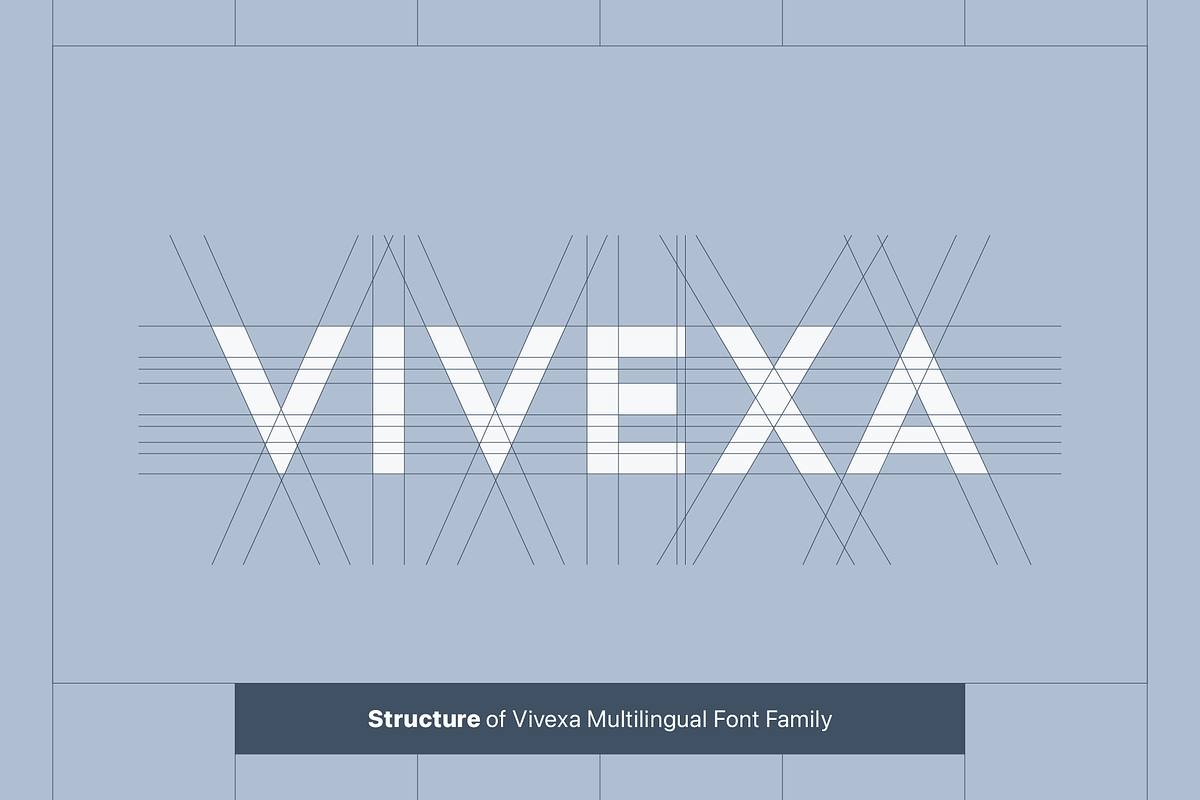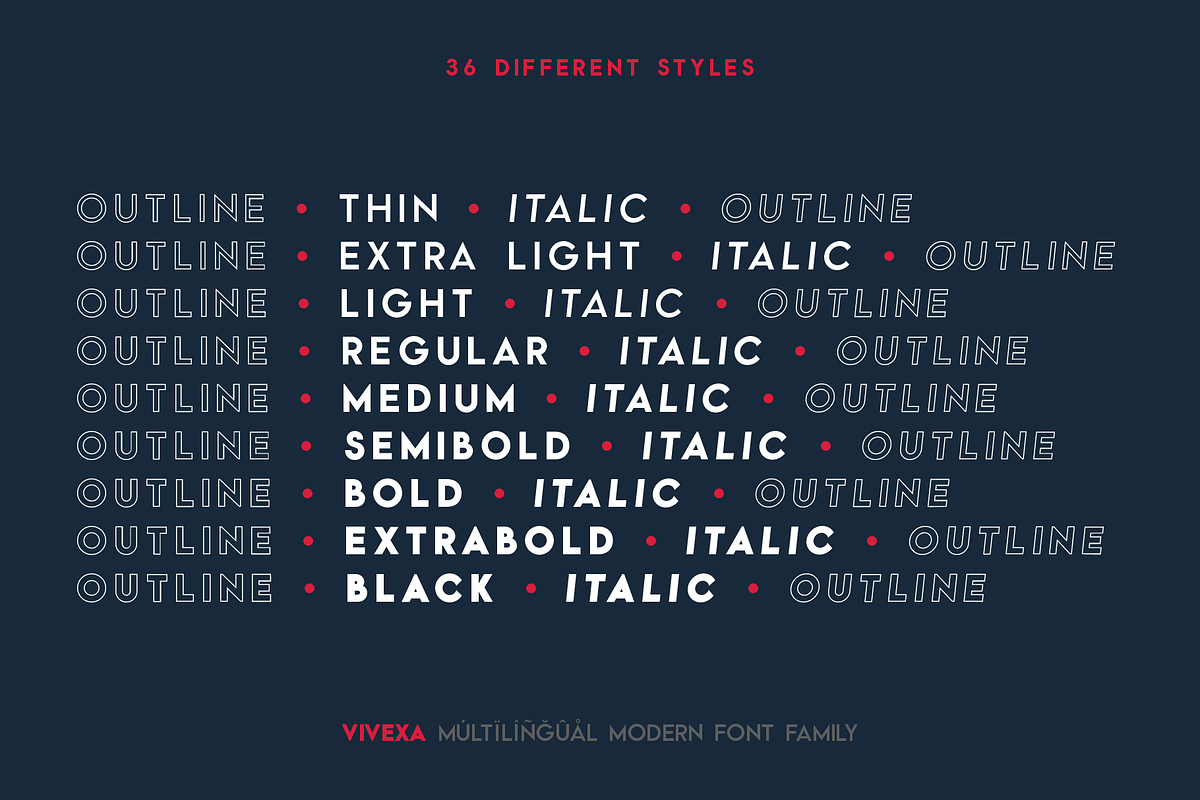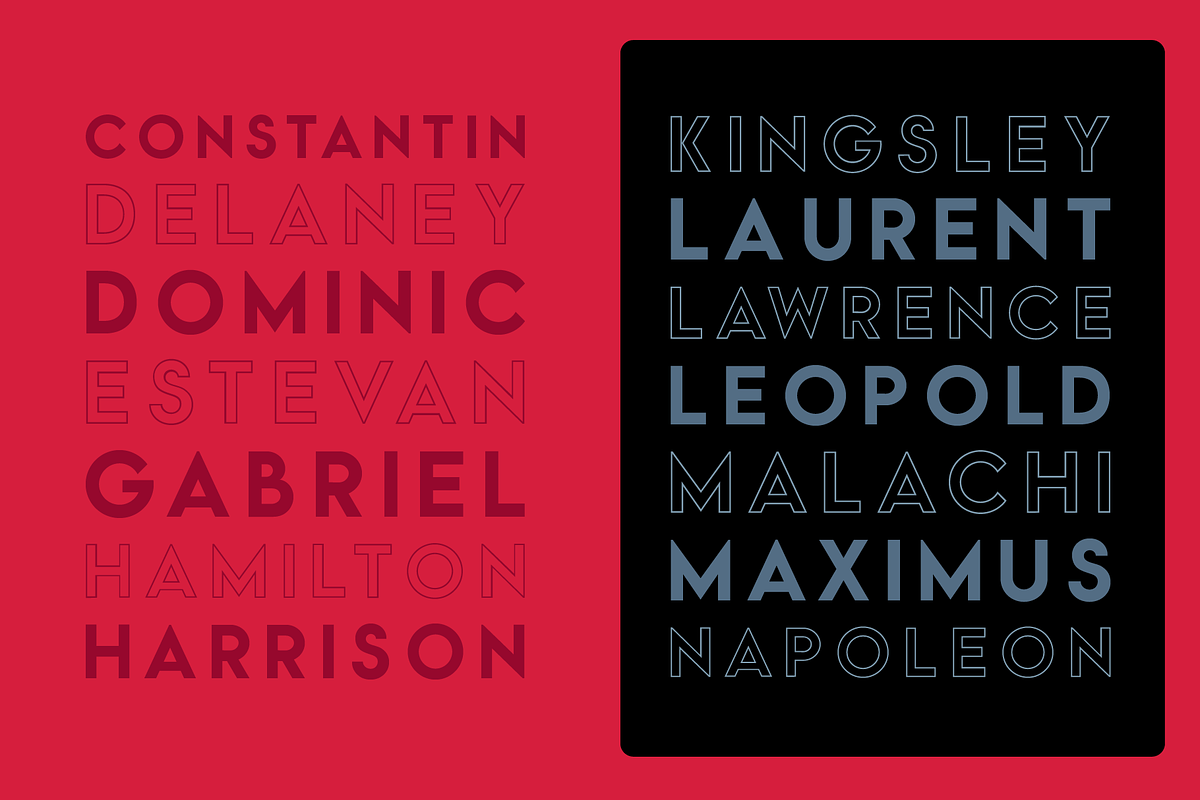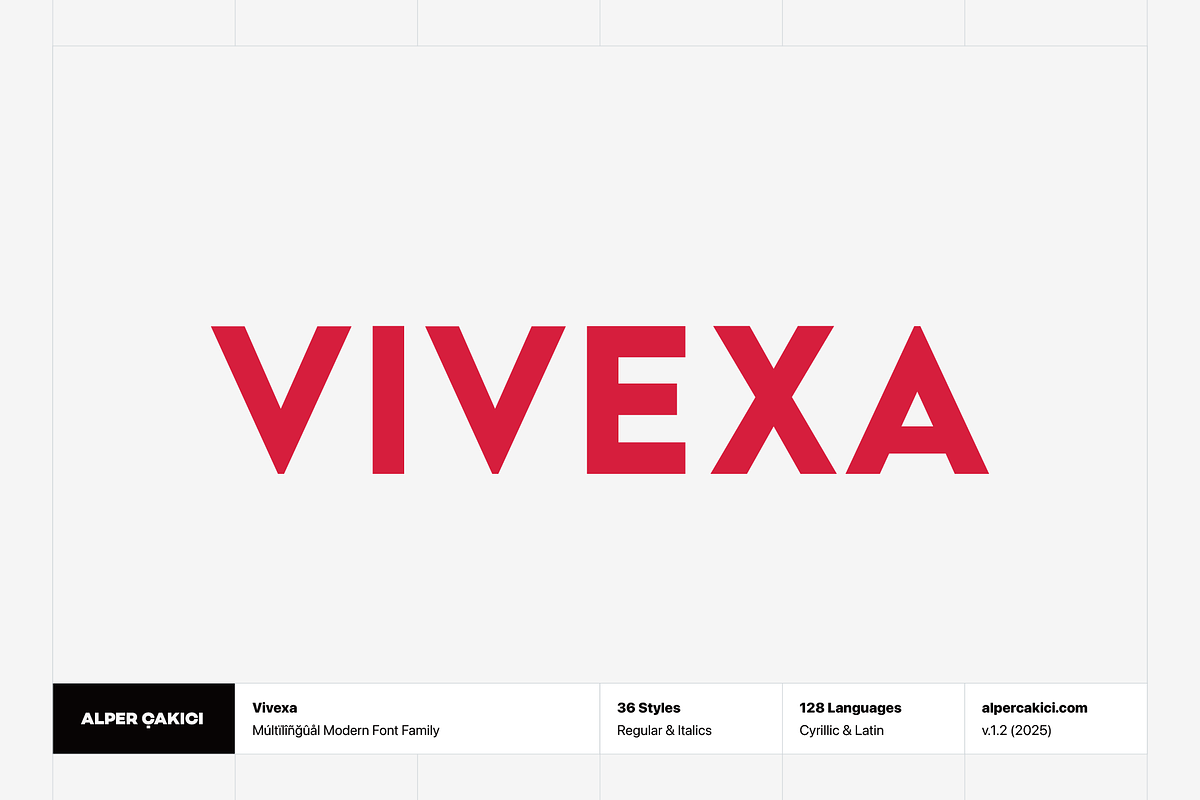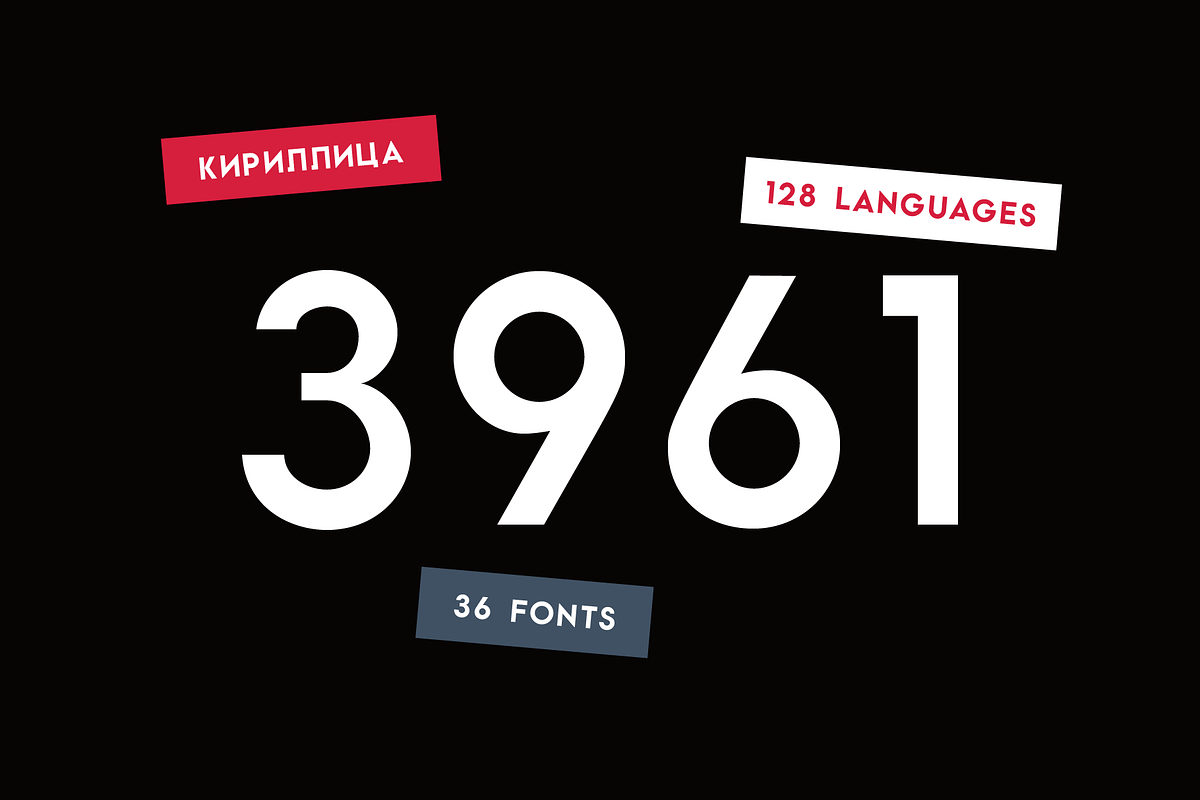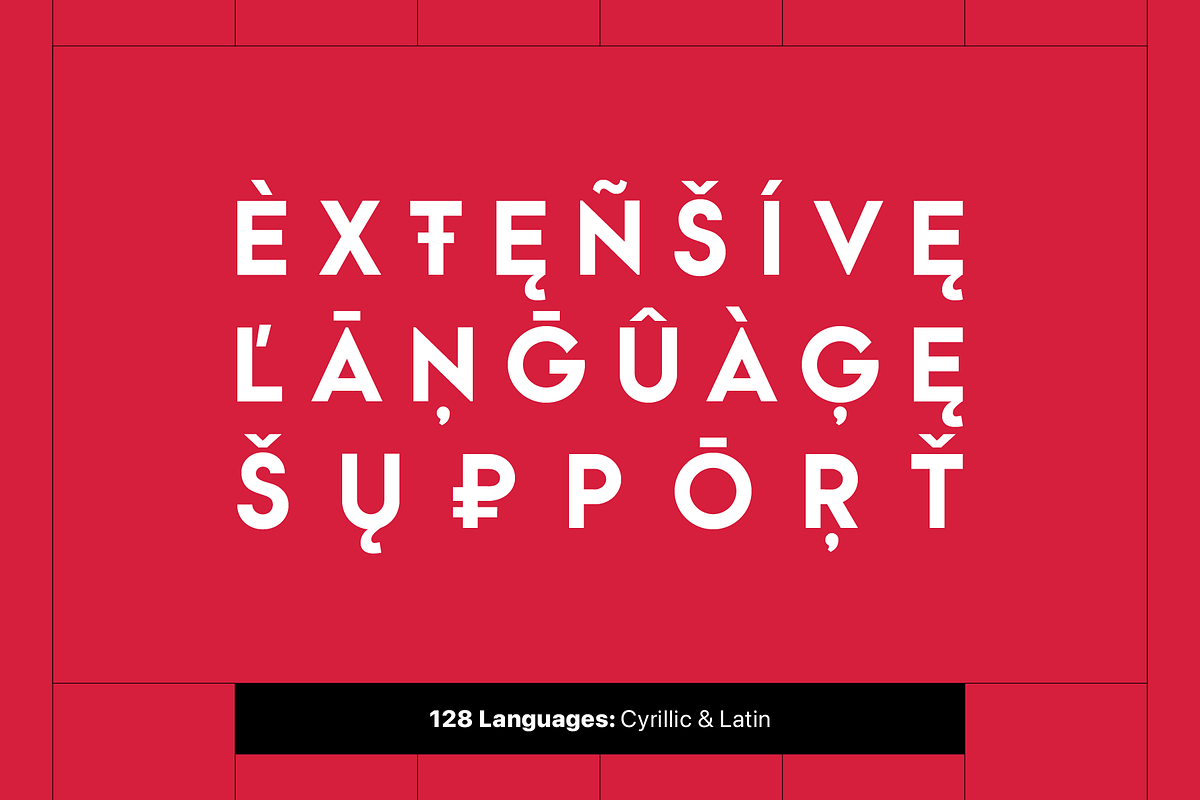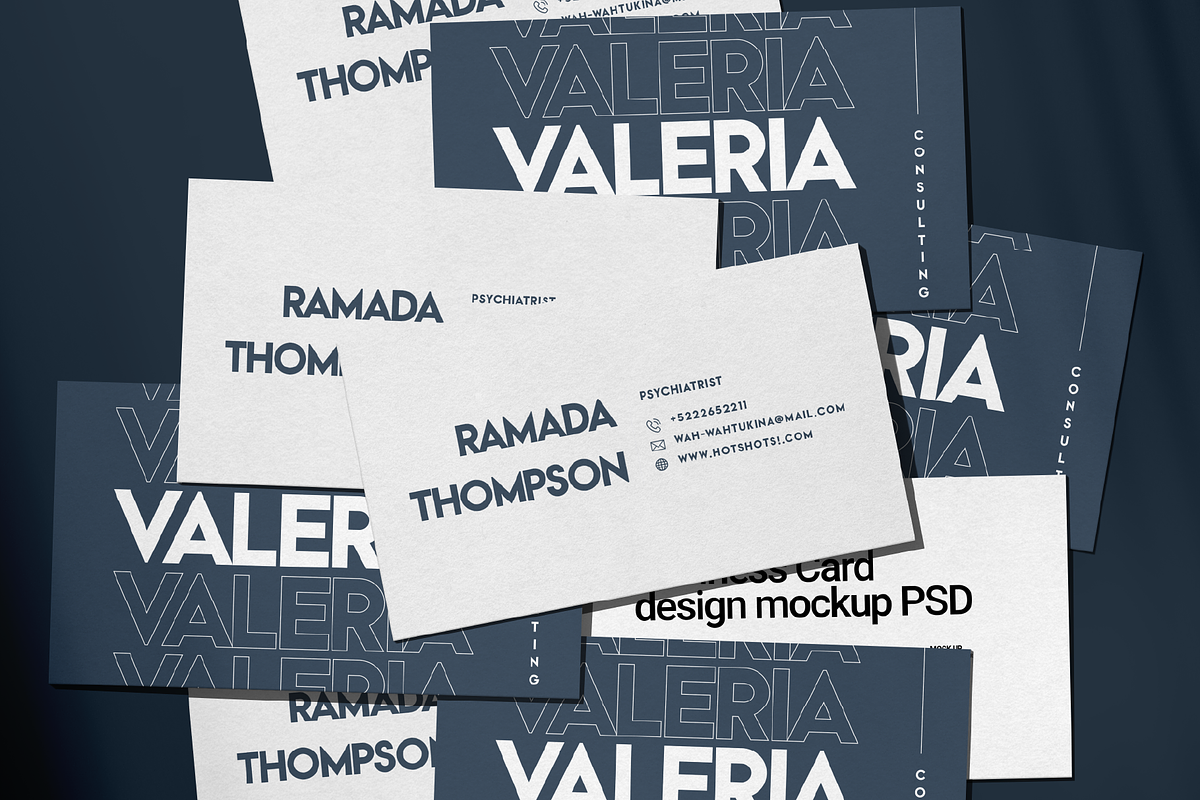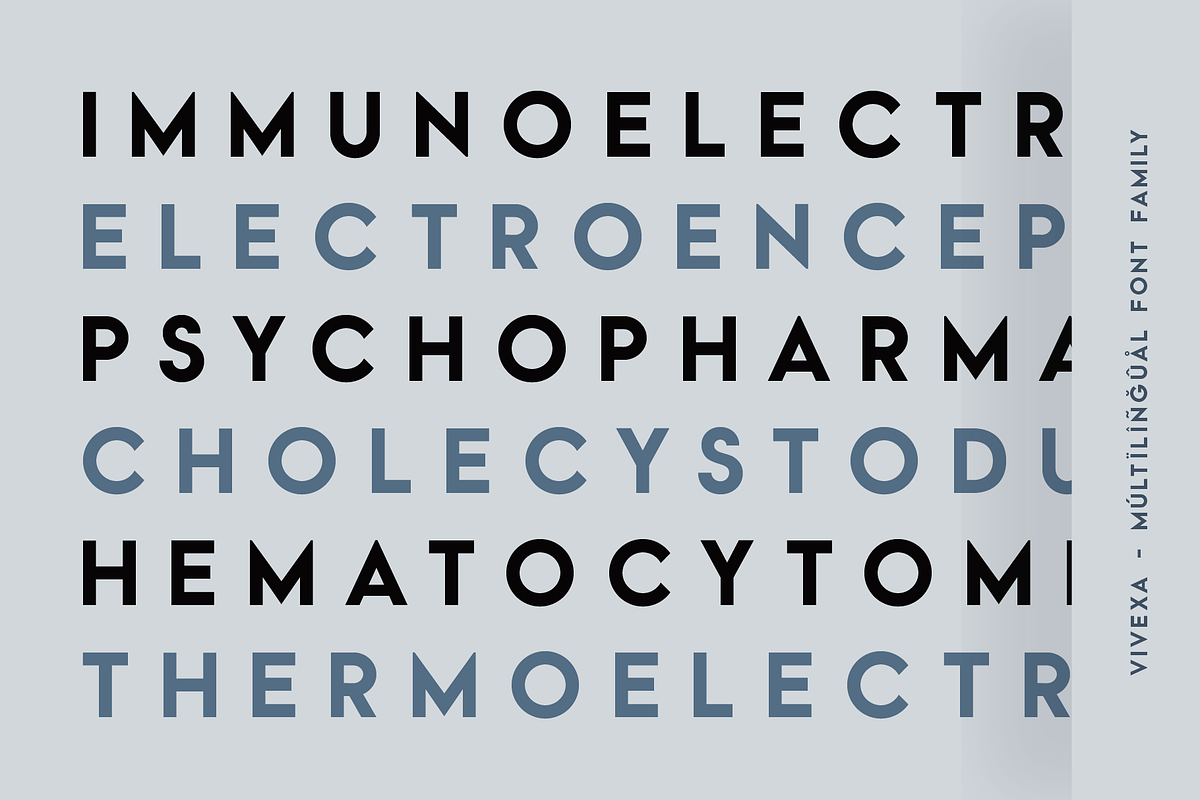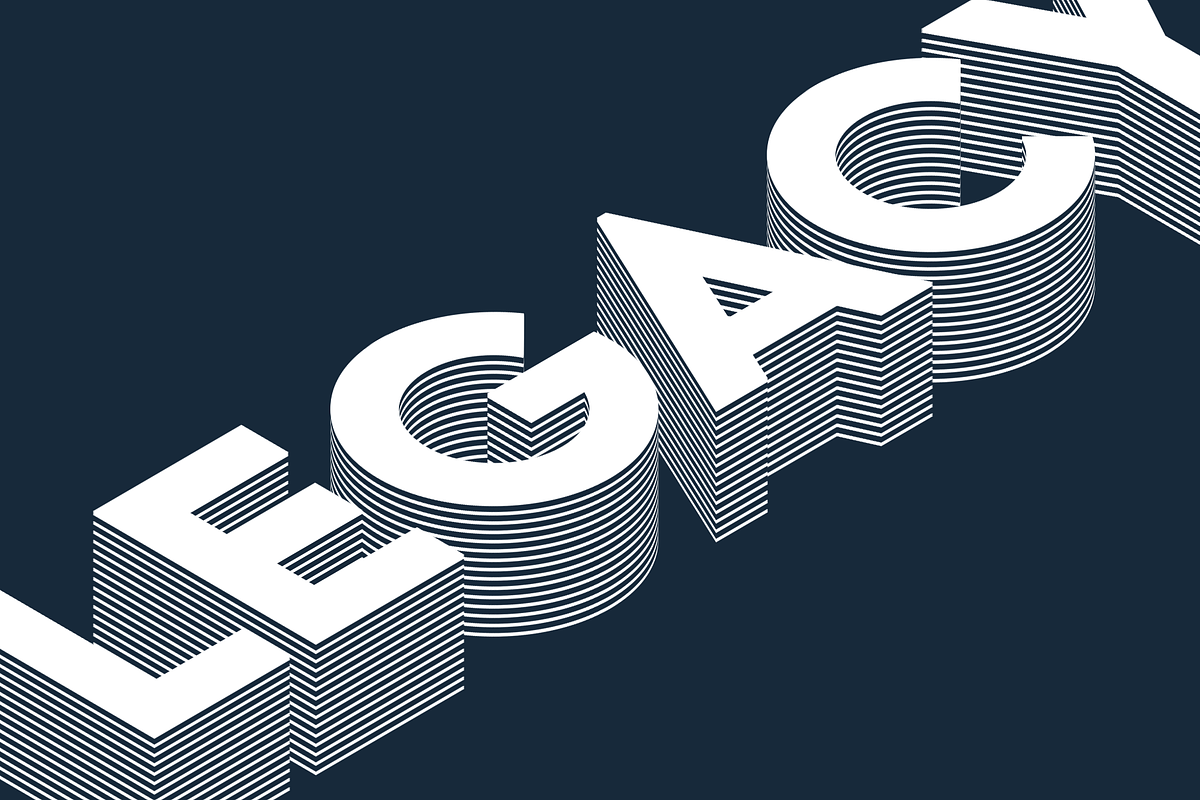
Vivexa Geometric Font Family
Vivexa is a modern geometric typeface defined by sharp corners, balanced proportions, and precise kerning.
Designed for versatility, it performs beautifully in both digital and print environments. With support for 128 languages, including full Cyrillic coverage, Vivexa ensures seamless multilingual communication.
Available in 36 styles—from Thin to Black, with matching Italics and Outlines—this font offers exceptional flexibility for branding, editorial, and interface design.
Vivexa blends timeless structure with a contemporary edge, making it a standout choice for designers seeking clarity and character in one package.